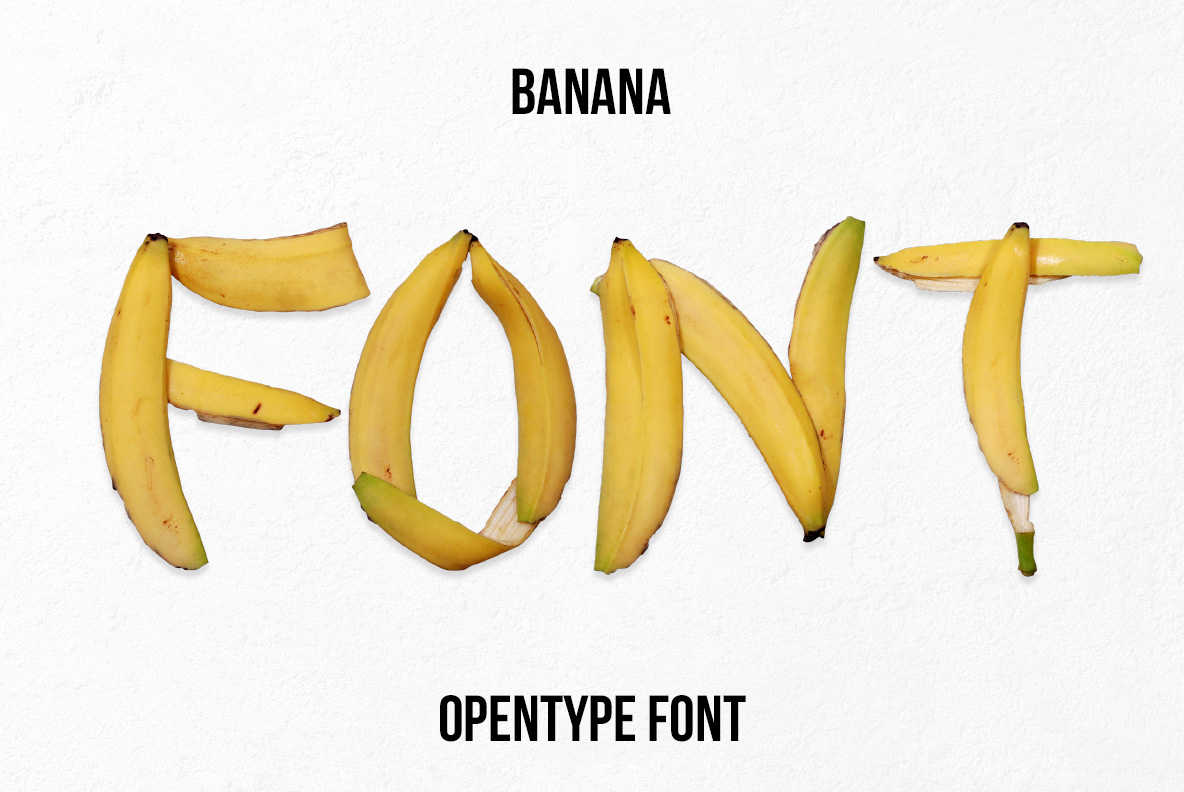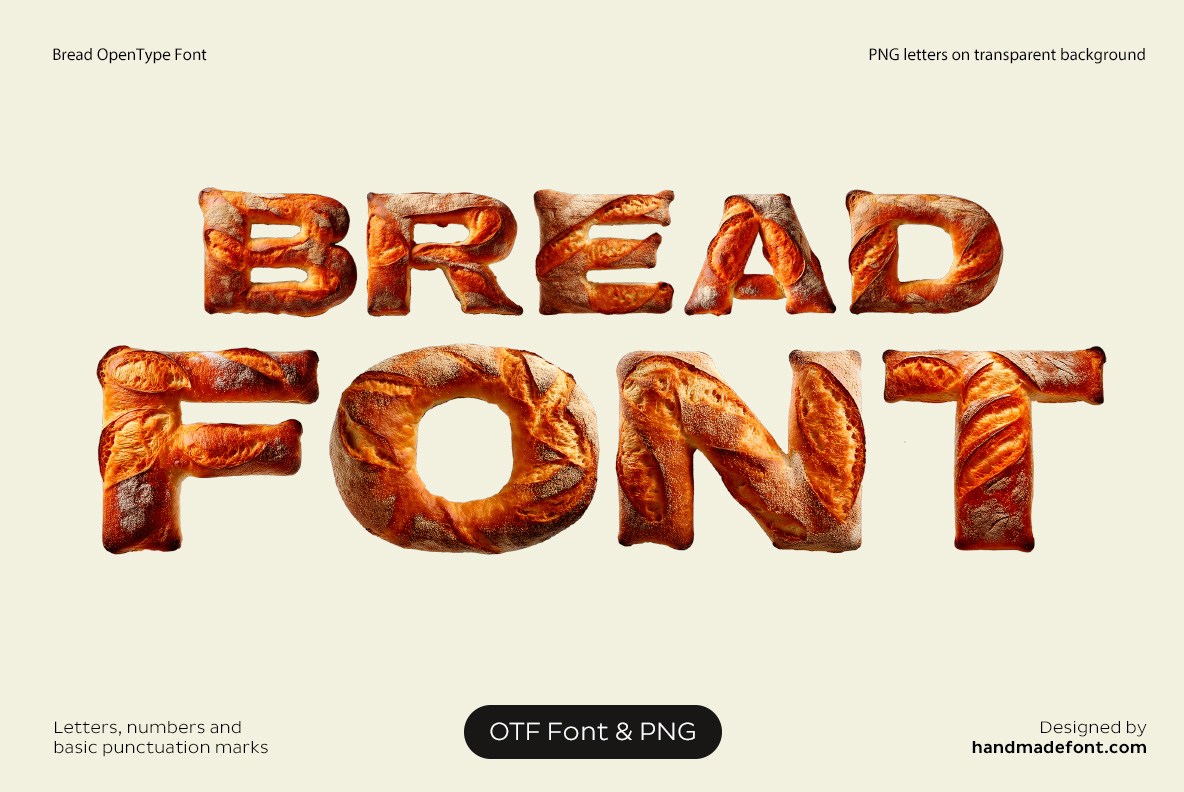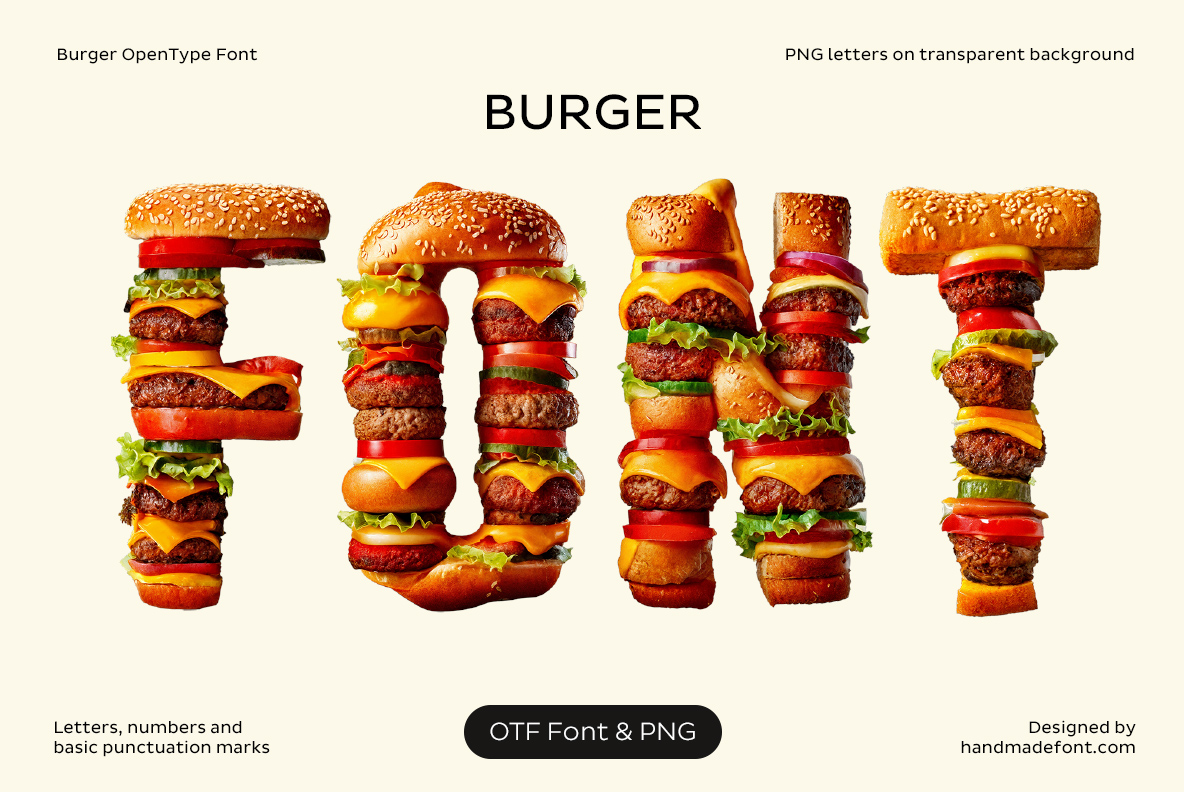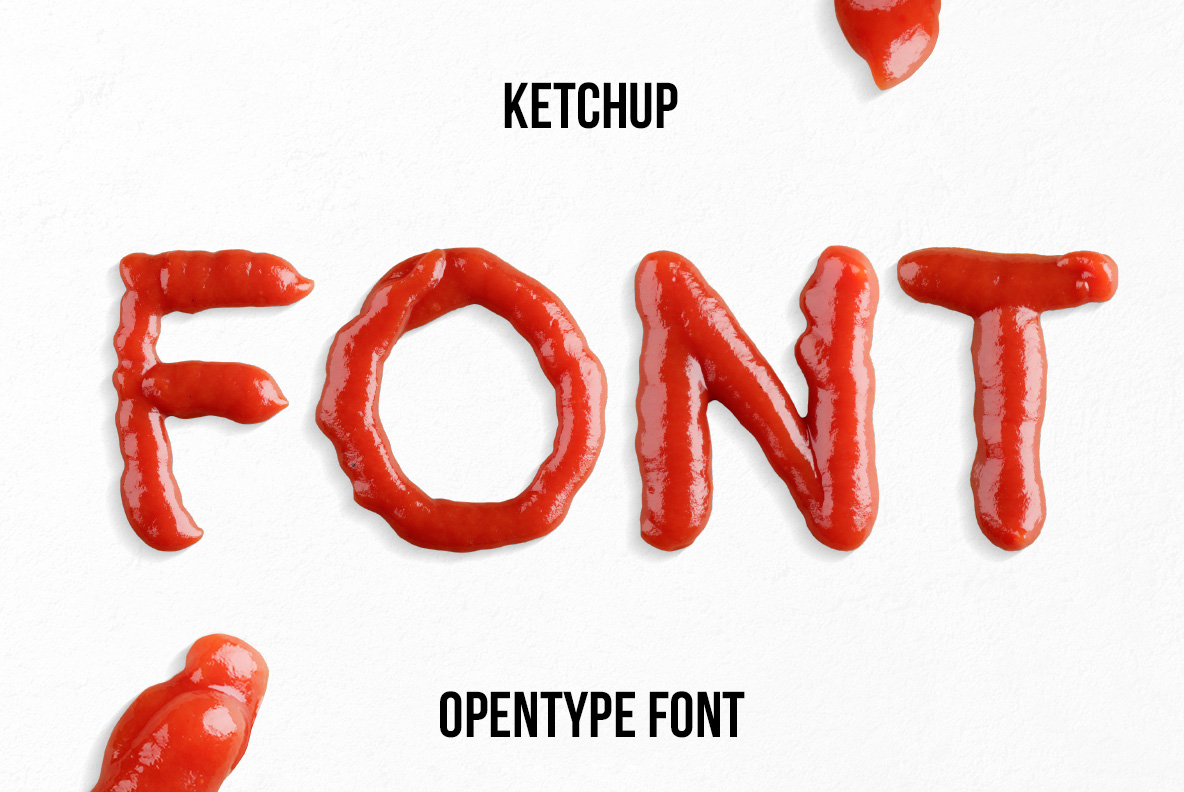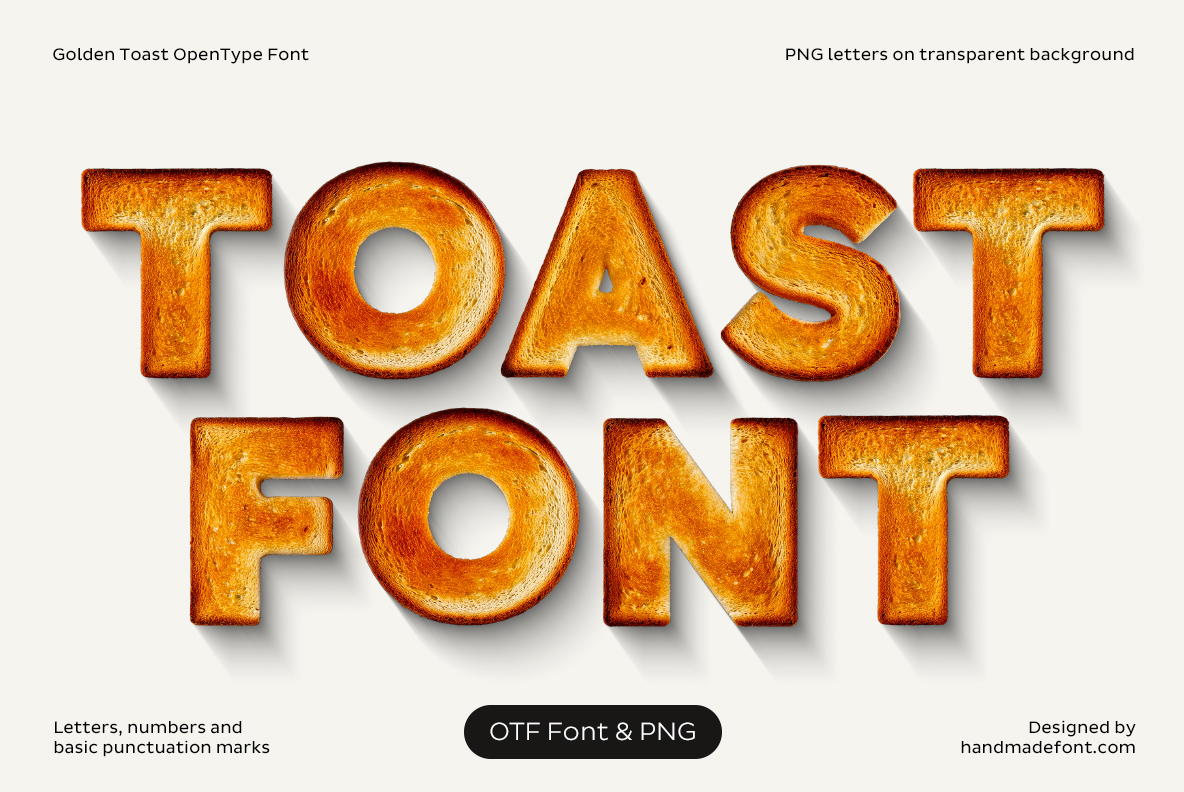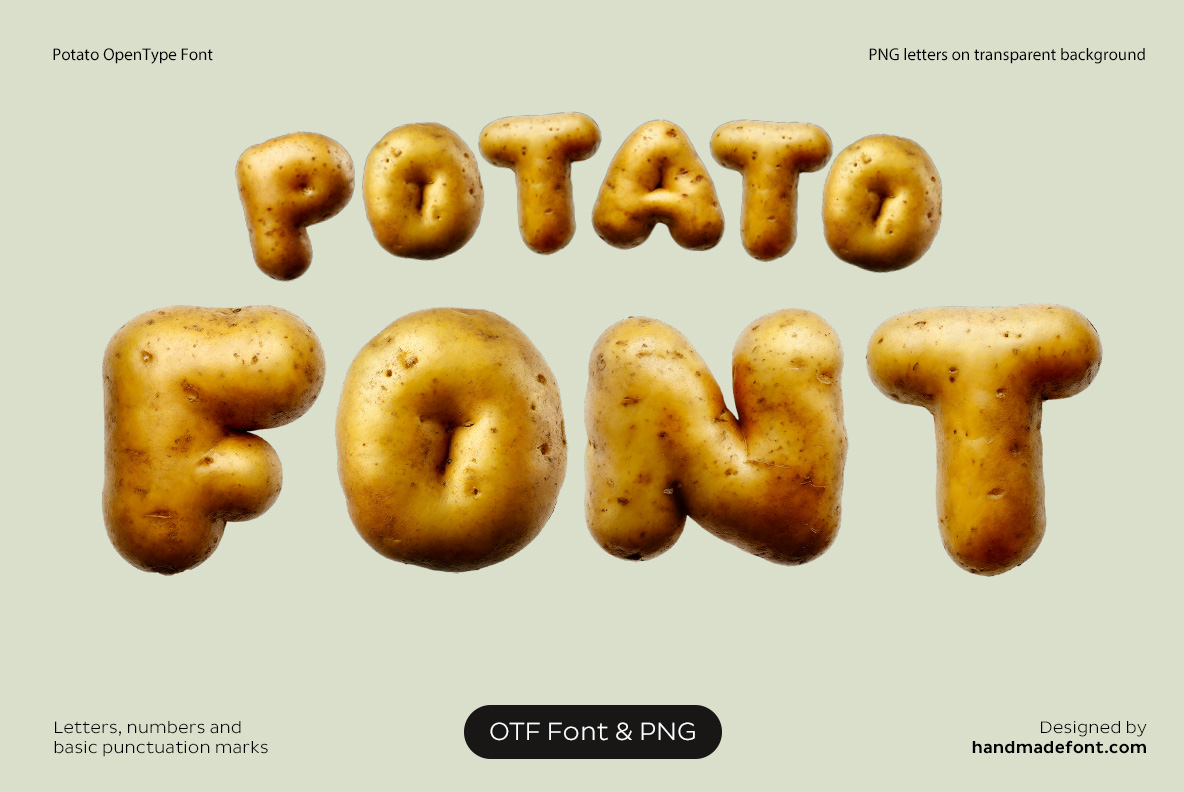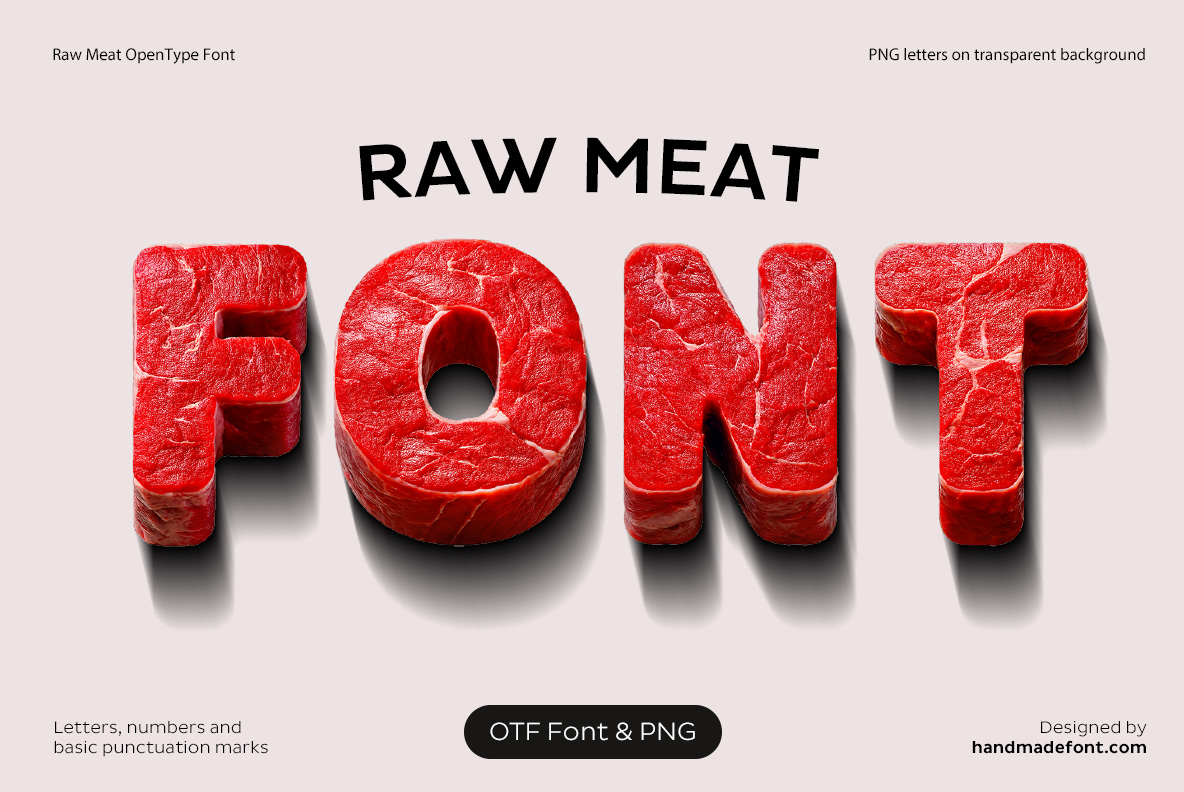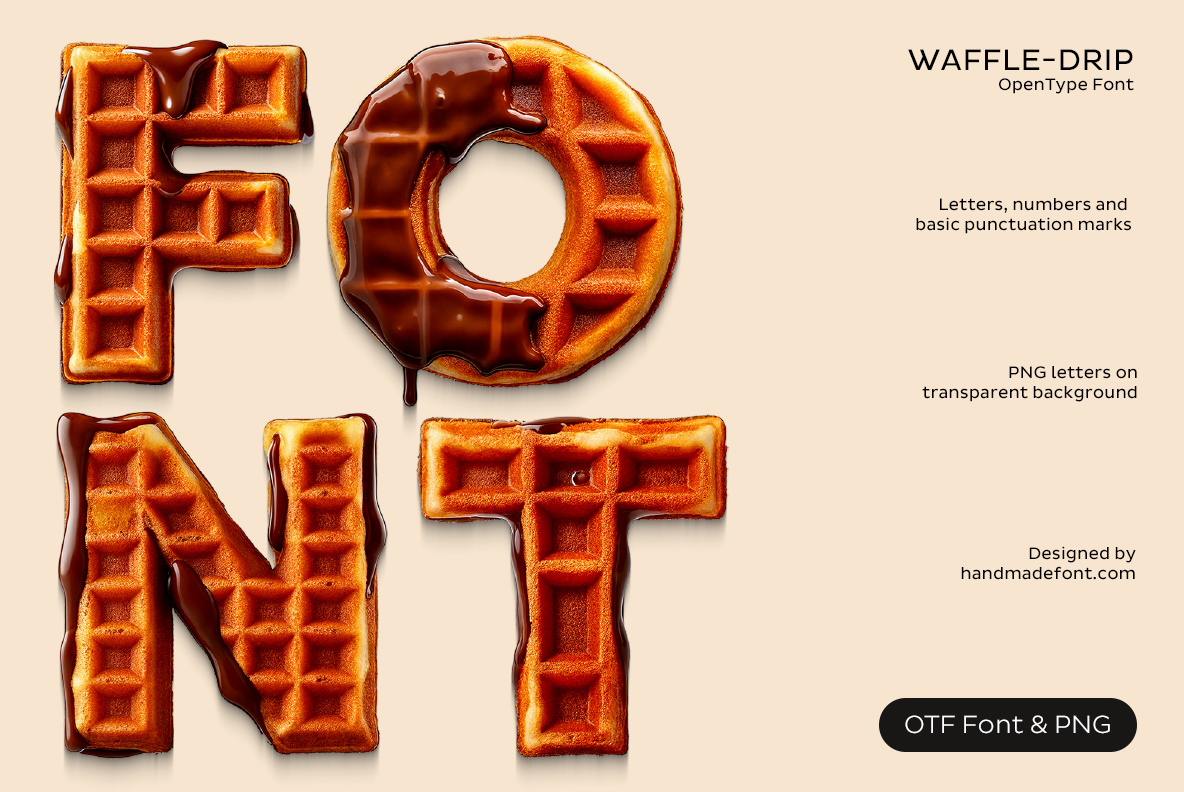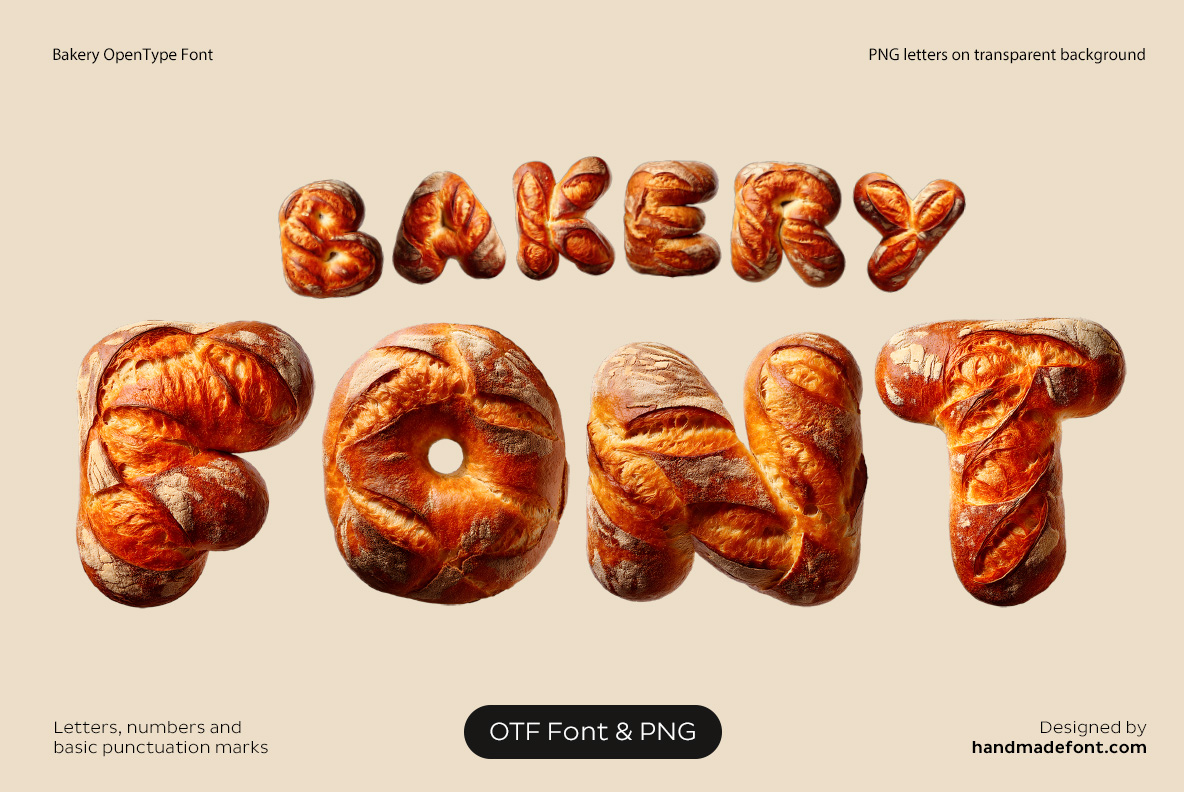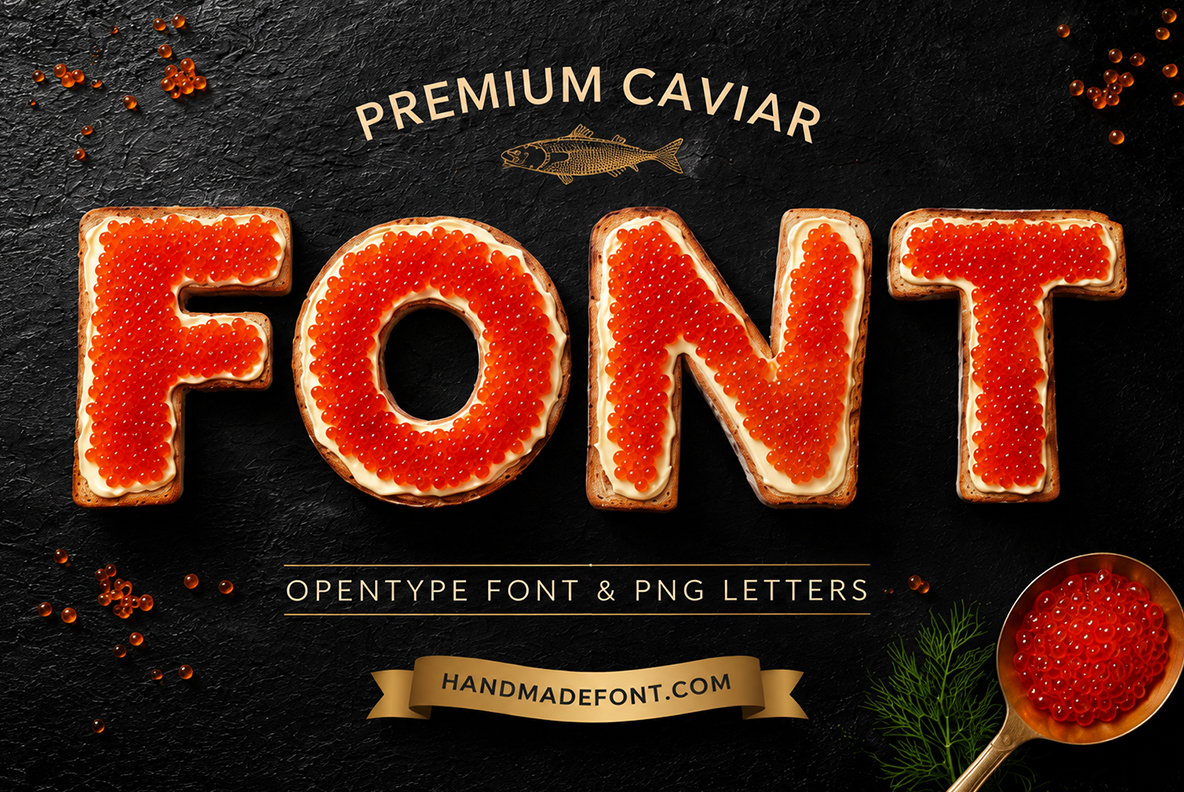
Food Fonts – Typography Good Enough to Eat
Hungry for better typography? Our Food Fonts collection turns tomatoes, strawberries, pizza, pasta, steak, burgers and other familiar foods into unusual alphabets. Discover playful food lettering for restaurant branding, menus, packaging, posters, advertising and editorial design. Some fonts look fresh, some look sweet, and a few probably contain far too many imaginary calories.
Food Fonts is the biggest collection in the shop and also the most literal: a burger font is built out of burgers, not out of a burger-coloured bevel. Cheese slides, yolks run, crust blisters, beef shows its grain. That is the warning as much as the pitch — these are photographs of food, so they want room and a decent size. Squeeze them onto a small label and the whole thing turns to brown mush.
Everything Here Was Edible First
Barista Font with realistic coffee bean letters spelling FONT
Barista Font
Glossy roasted beans, split down the middle, packed into every stroke.
Burger Font with letters made from burgers, cheese, lettuce and tomatoes
Burger Font
Whole burgers stacked until they hold a letter shape, cheese sliding out of the sides.
Crispy Bread Font with realistic baked bread letters spelling FONT
Crispy Bread Font
Blistered golden crust, the kind that crackles when you press a thumb into it.
Eggplant Font with glossy purple eggplant letters spelling FONT
Eggplant Font
Deep purple aubergines with the stalks still on, polished to a hard shine.
Fried Eggs Font with realistic fried egg letters spelling FONT
Fried Eggs Font
Runny yolks and ragged whites, shot on a pale blue counter.
Garden Tomato Font with realistic red tomato letters spelling FONT
Garden Tomato Font
Ripe tomatoes wearing their green calyx, and not all of them quite straight.
OnioType Font with sliced red onion letters spelling FONT
OnioType Font
Red onion cut across the middle, every ring sitting where it should.
Pasta Fusion Font with rigatoni pasta and tomato sauce letters spelling FONT
Pasta Fusion Font
Rigatoni and diced sauce against flat blocks of red and blue.
Potato Font with realistic potato-shaped letters spelling FONT
Potato Font
Raw potatoes with the skin left on, dirt still in the dimples.
Premium Caviar Font with red caviar letters on toast spelling FONT
Premium Caviar Font
Toast under glossy red roe on black slate. The most expensive letters in here.
Al Dente Font with realistic spaghetti letters forming the word FONT
Al Dente Font
Wide tagliatelle ribbons folded into shape on bottle green.
Bakery Font with realistic baked bread letters forming the word FONT
Artisan Loaf Font
Scored loaves and knots of bread, proved long and baked dark.
Fresh Ketchup Font with red ketchup letters forming the word FONT
Fresh Ketchup Font
Sauce squeezed straight out of the bottle, blob and all.
Golden Toast Font with toasted bread letters spelling TOAST FONT
Golden Toast Font
Toast browned unevenly, edges darker than the middle.
Pizza Font with realistic pizza letters forming the word FONT
Pizza Font
Slices with melted cheese, pepperoni and basil, crust running round the outside.
Raw Meat Font with realistic raw beef letters forming the word FONT
Raw Meat Font
Cuts of red beef with the marbling showing. Not a font for every brief.
Salmon Font with realistic salmon steak letters forming the word FONT
Salmon Font
Salmon fillets with silver skin down one edge and pale fat lines across.
Steakhouse Font with grilled steak letters forming the word FONT
Steakhouse Font
Char marks straight off the grill, rosemary scattered around the letters.
Strawberry Delight Font with realistic strawberry letters forming the word FONT
Strawberry Delight Font
Whole strawberries, green tops on, seeds picked out in the skin.
Sushi Font with sushi roll letters forming the word FONT
Sushi Font
Maki rolls seen end on: nori, packed rice and a core of orange fish.
Bold Bread Font with realistic baked bread letters forming the words BREAD FONT
Bold Bread Font
Braided loaves, heavy and glazed, a size up from the crispy one.
French Fries Fiesta Font with French fries and ketchup forming the word FONT
French Fries Fiesta Font
Skinny fries laid in bundles, salt included.
Fried Potatoes Font with golden fried potato letters spelling FRENCH FRIES
Fried Potatoes Font
Fried slices on black linen, gold and matte rather than glossy.
Green Apple Font with realistic green apple letters forming the word FONT
Green Apple Font
Hard green apples with a wax shine and the odd brown speck.
Orange Burst Font with orange juice and citrus slices forming the word FONT
Orange Burst Font
Juice frozen mid-splash with the pulp still suspended in it.
Pancake with Jam Font with pancake letters covered in red jam forming the word FONT